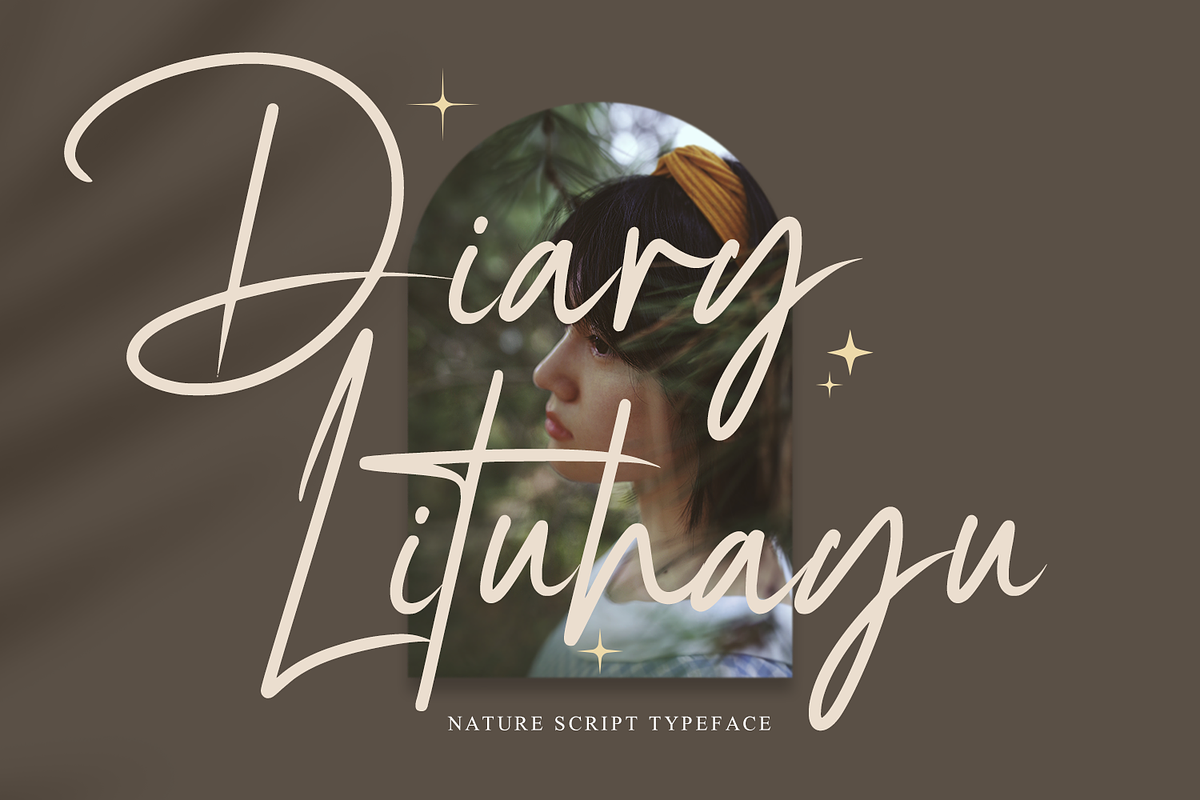
Diary Lituhayu // Nature Script Font Free Download is a graceful handwritten typeface inspired by nature, mindfulness, and personal expression. With flowing strokes, organic curves, and a soft, natural rhythm, this script font is perfect for journals, wellness branding, eco-friendly packaging, wedding invites, and heartfelt quotes.
Its handwritten elegance gives designs a warm and authentic touch, ideal for creatives seeking a personal, down-to-earth aesthetic. Whether you're crafting a brand story, designing botanical labels, or creating serene social media graphics, Diary Lituhayu offers both beauty and emotional connection.
Let your words bloom with the gentle, nature-inspired charm of Diary Lituhayu.